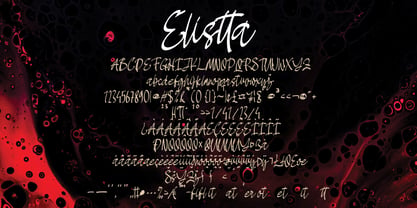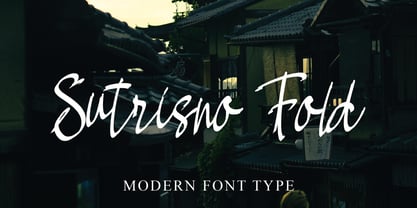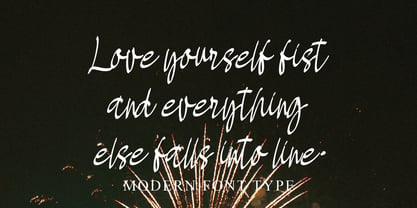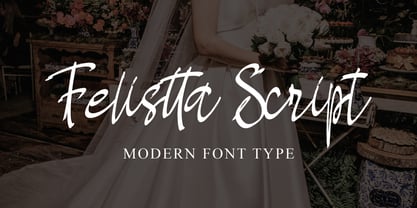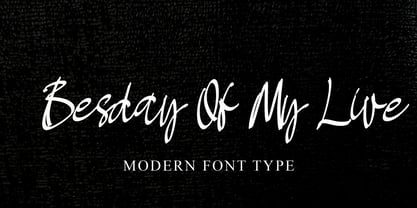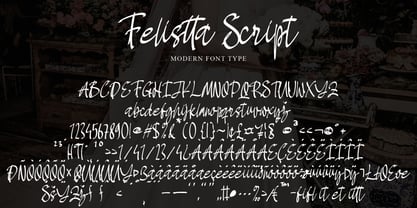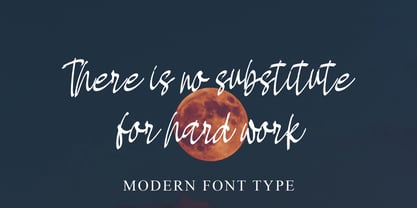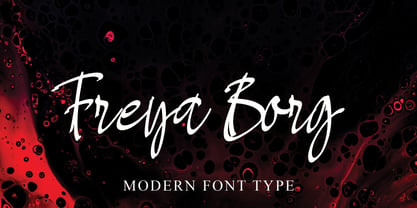
Felistta Script
by Naatypo
The Felistta Script Font Family was designed by Kurnia Elis Setyorini and published by Naatypo. Felistta Script contains 1 styles. More about this family
Introducing Felistta Script, a sublime amalgamation of renewed sophistication articulated through fluid strokes of handwritten artistry. This font, steeped in character, radiates a distinguished charm, instantly enriching your designs with a comforting, intimate touch. Peppered with a dash of boldness, Felistta Script seamlessly dances across the boundary of relaxed curves and the dynamic spirit of brush-stroked calligraphy. Its unique texture, which echoes the soothing touch of a painter's brush, forms the captivating heart of this typographic marvel. Felistta Script imprints an indelible mark whether it's used for conveying powerful messages or for etching out an enduring brand image, its excellence is beyond dispute.
Designers: Kurnia Elis Setyorini
Foundry: Naatypo